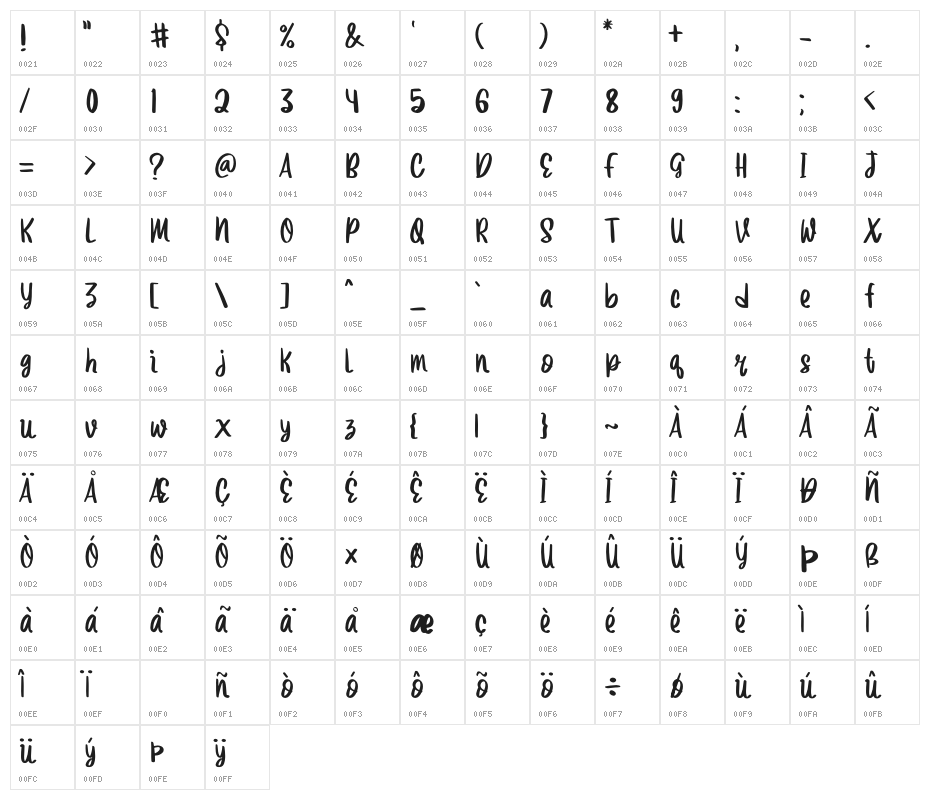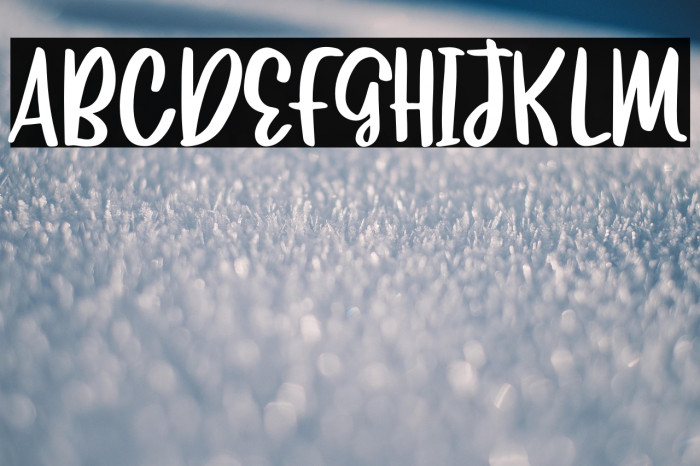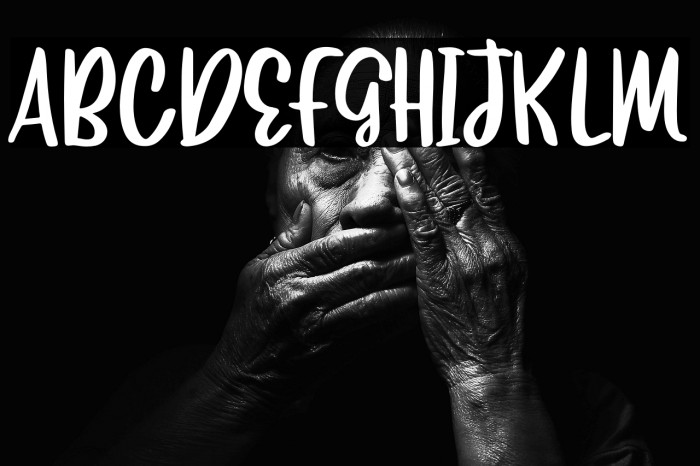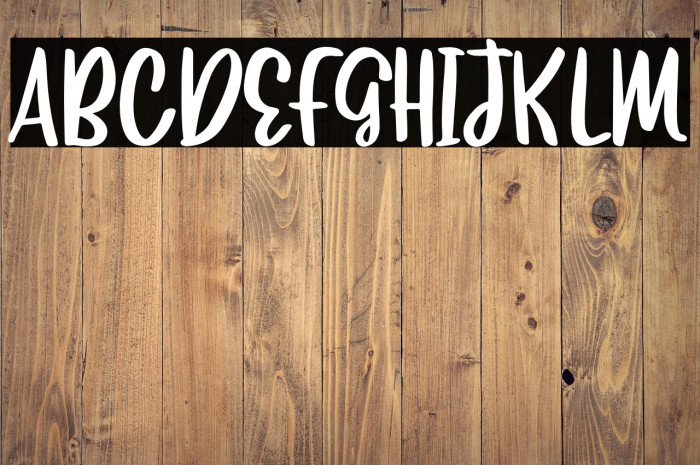
Miracle Of Love Font
Miracle Of Love Description
This font features a playful and energetic handwritten style, characterized by its bold and flowing letterforms. The uppercase and lowercase letters exhibit a consistent, rounded appearance with a slight slant, adding to its casual and friendly vibe. The numbers and special characters maintain this cohesive style, ensuring versatility across various uses. The strokes are thick and uniform, providing a strong visual impact while maintaining readability. This font's dynamic and lively nature makes it suitable for projects that require a personal touch or a sense of fun and creativity.
| Proposed Projects | Ideal for greeting cards, playful branding, social media graphics, and children's book covers. |